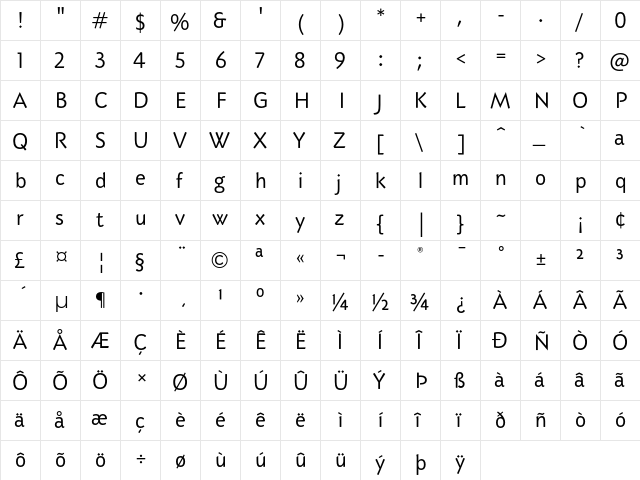
Adderville ITC Std Book
| Designer | George Ryan |
Design Context for Adderville ITC Std Typeface
Adderville ITC Std is a composed and adaptable typeface that performs quietly and consistently across a wide range of design contexts.